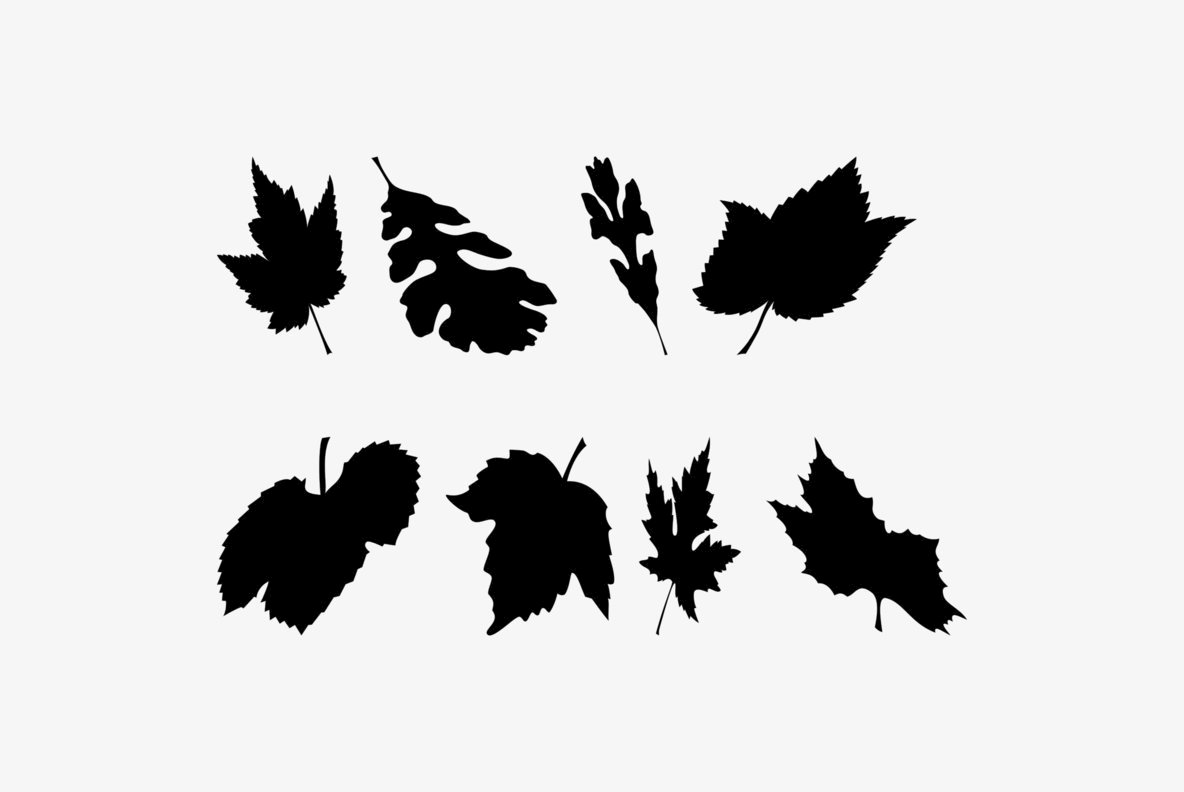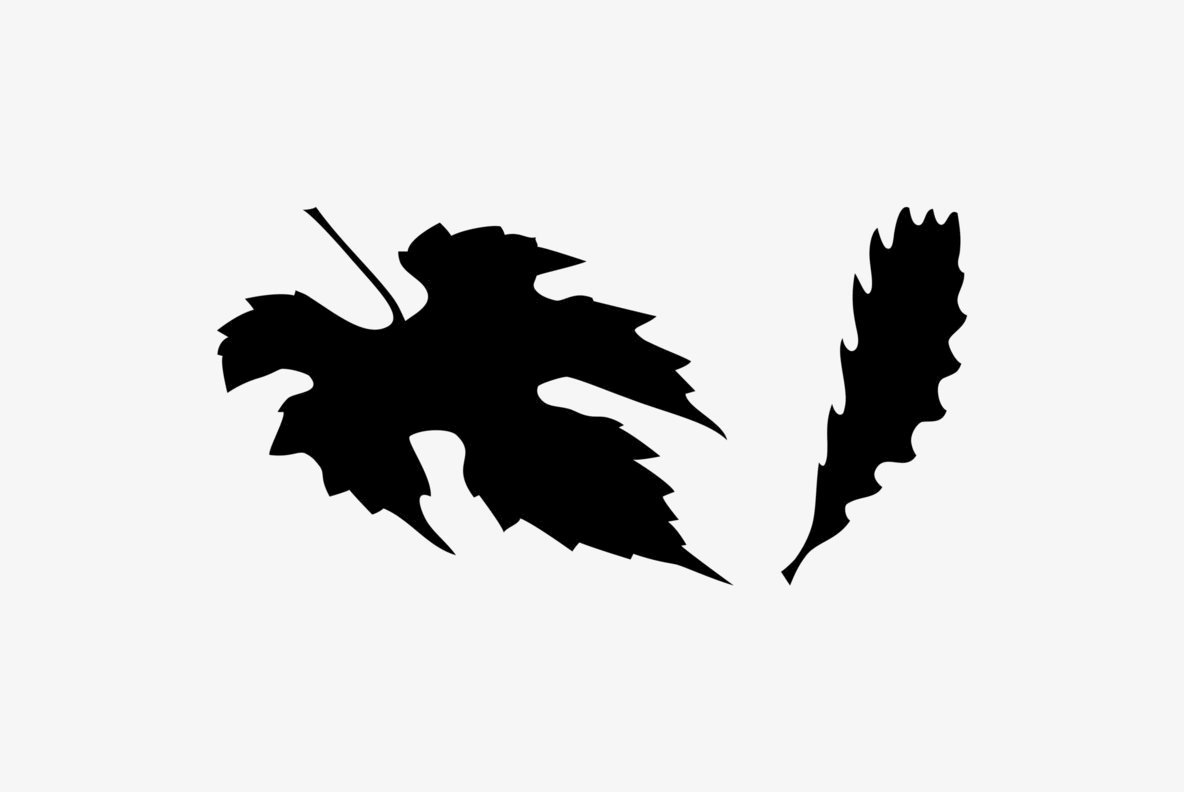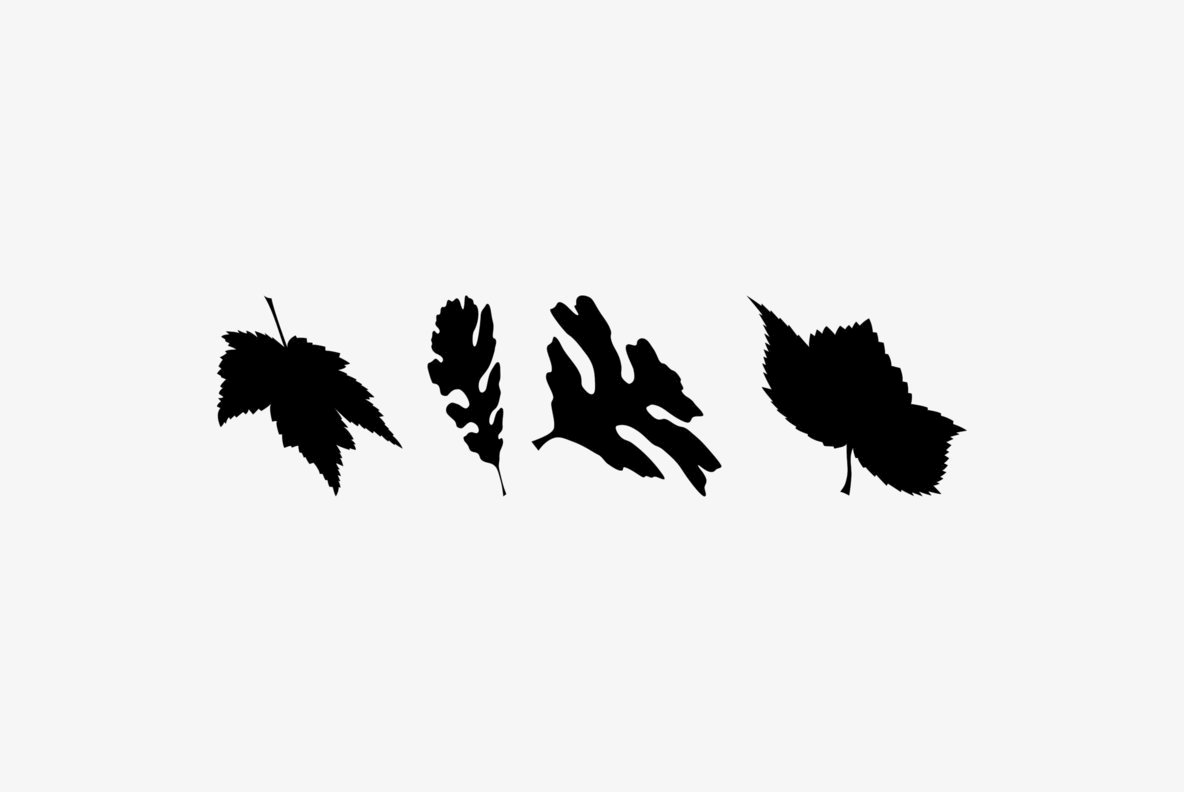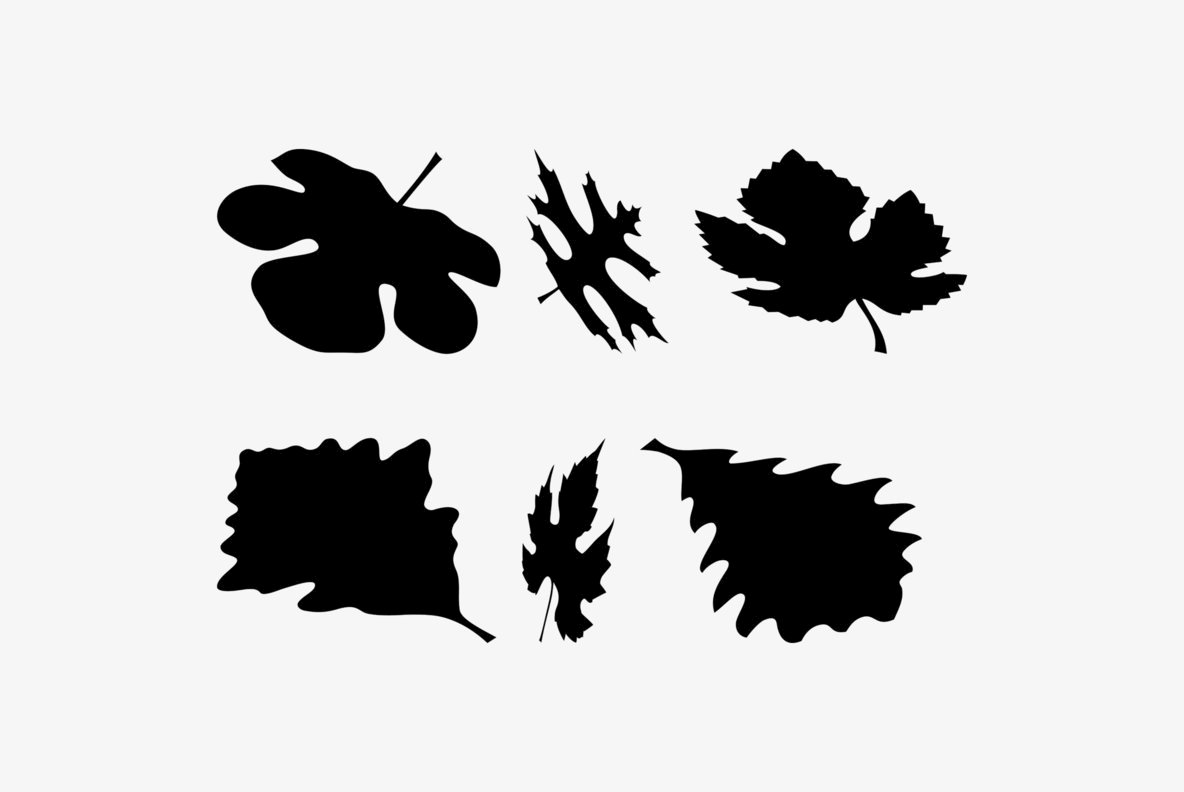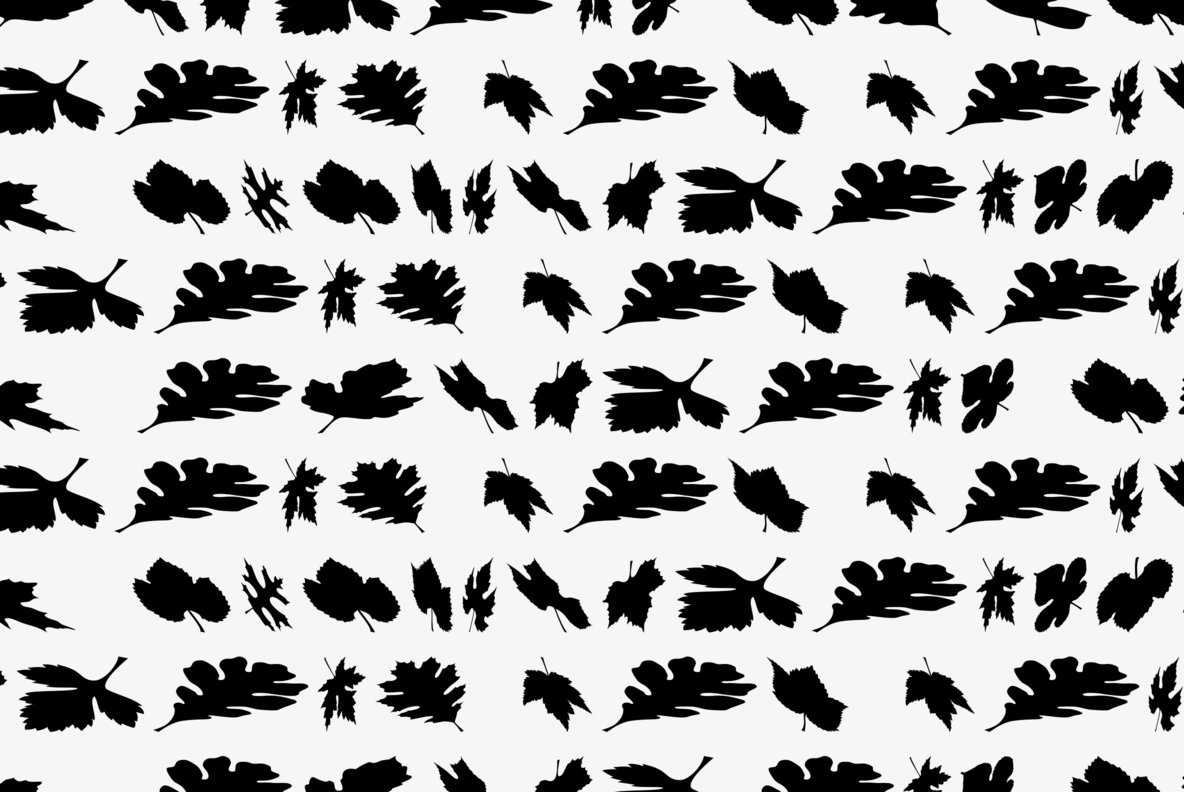
Leaves Falling
Forty-six leaf designs from the Leaf Assortment font were three-dimensionally rotated to various viewing angles other than perpendicular (which is how they are viewed in the Leaf Assortment). Holding the modifier keys, Shift, Option, Shift + Option, and typing the same character will access different views of the same leaf. Font contains 180 characters.